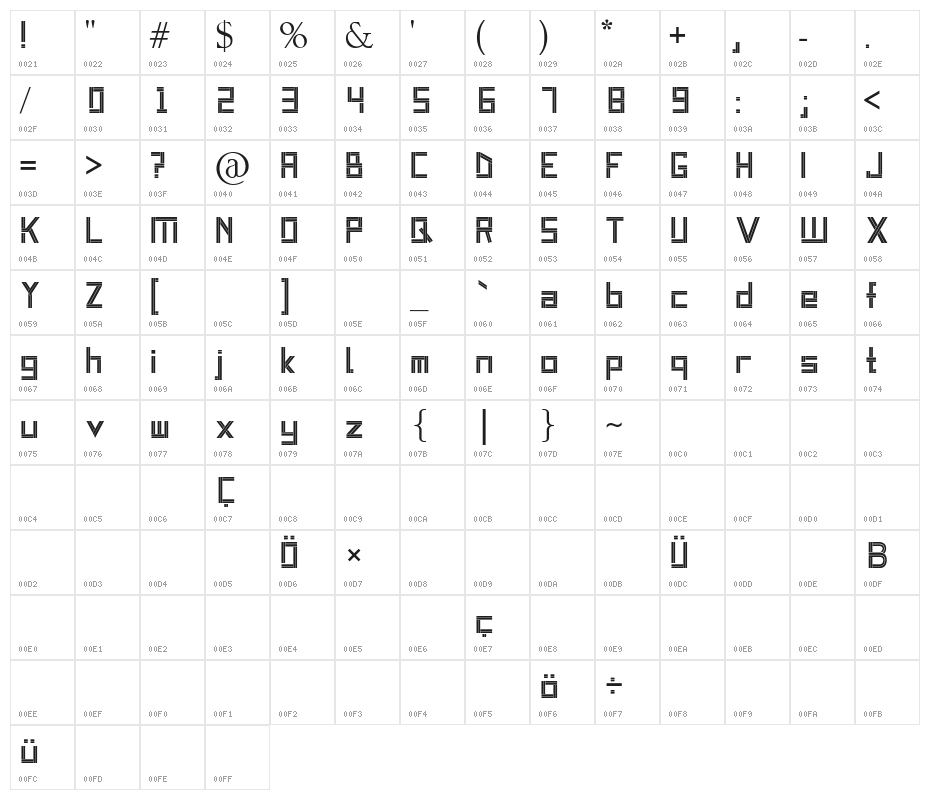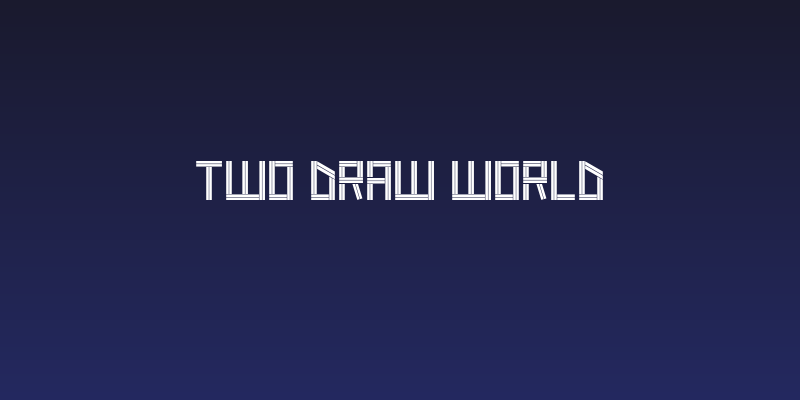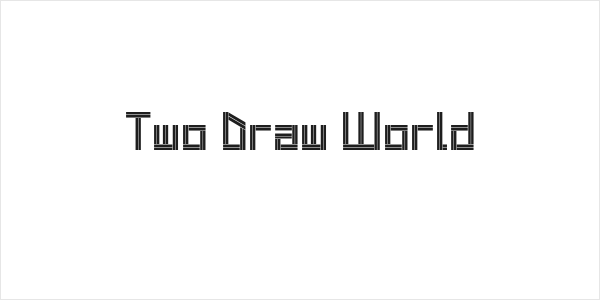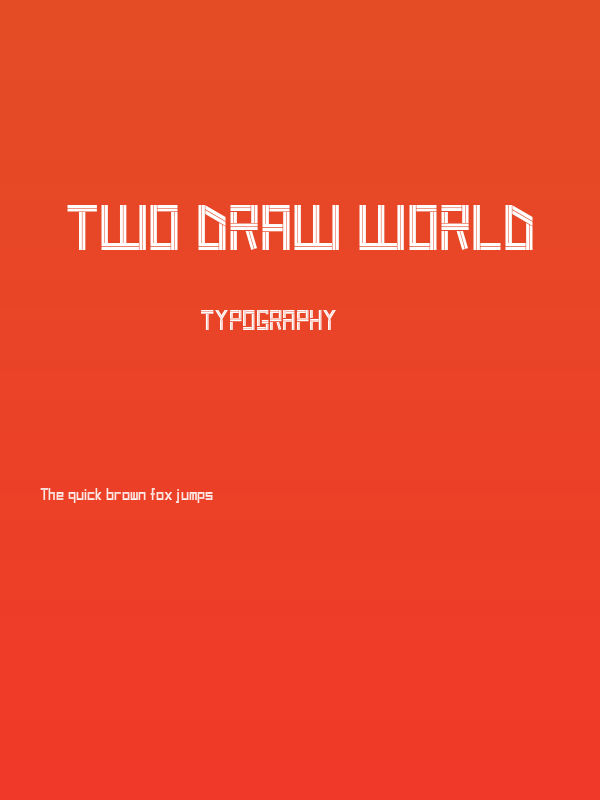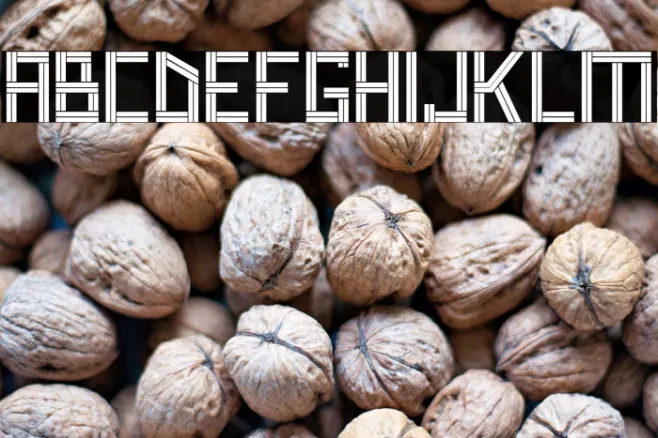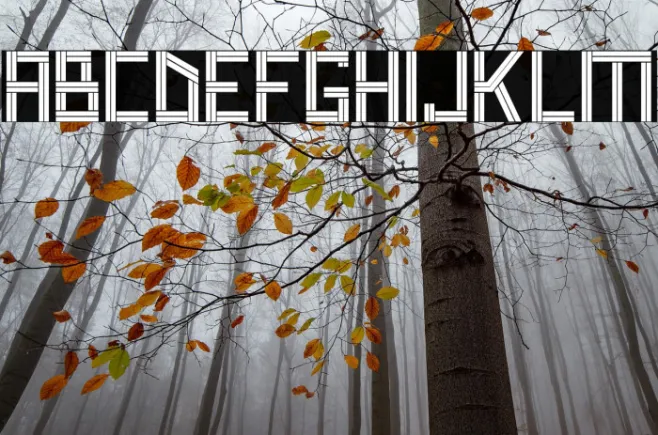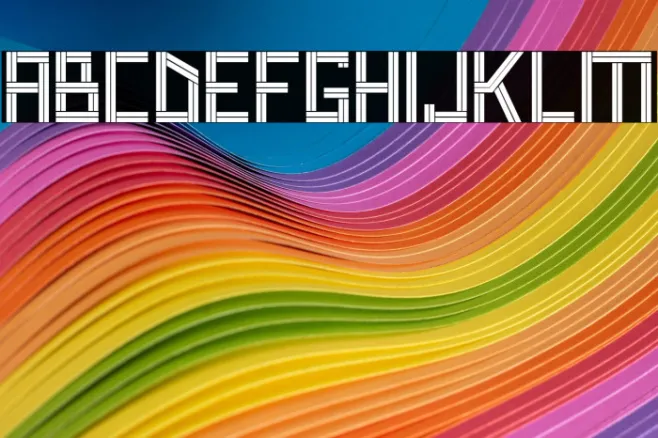
Two Draw World Font
Two Draw World Description
This font features a highly geometric and structured design, characterized by its use of parallel lines and sharp angles. Each character is constructed with a series of horizontal and vertical lines, creating a sense of depth and complexity. The uppercase and lowercase letters maintain a consistent style, with the lowercase being slightly more compact. Numbers and special characters follow the same design principles, ensuring uniformity across the set. The font's unique appearance makes it stand out, offering a modern and futuristic feel that is both bold and eye-catching.
| Proposed Projects | Ideal for branding, posters, album covers, and any project requiring a bold, modern aesthetic. |